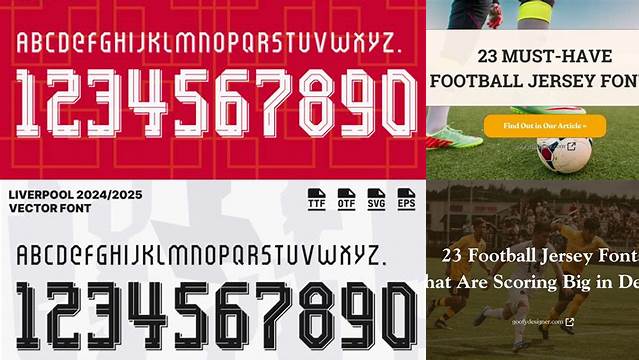
Top Football Jersey Fonts: A Guide For Fans & Designers
Hey everyone! If you're a football fanatic or a designer looking to create the ultimate jersey, you've come to the right place. We're diving deep into the world of best football jersey fonts, exploring everything from classic styles to modern designs. Choosing the right font is crucial; it's like the finishing touch on a masterpiece, making your jersey pop and tell a story. So, grab your favorite beverage, get comfy, and let's explore the fonts that make football jerseys iconic.
Best Football Jersey Fonts: The Classics and Their Charm
When we talk about the best football jersey fonts, we can't ignore the timeless classics that have graced the backs of legends. These fonts have a heritage, a history etched in every game, every goal, and every victory. They're not just fonts; they're symbols of the sport itself. Let's start with some of the most recognizable and beloved.
First up, the Block Font. This is the OG of football fonts. Simple, bold, and readable from a mile away, it's the workhorse of jersey designs. You'll find variations everywhere, from the NFL to your local high school team. The block font's strength lies in its simplicity – it gets the job done, no fuss, no frills. It's like the reliable running back who always gains those crucial yards. Then there's the Varsity Font, often seen with a slight slant or a shadow effect. This font exudes a sense of athleticism and energy. It's perfect for teams looking to project a dynamic and competitive image. Think of it as the quarterback, leading the team with confidence and style. The Varsity font often has a collegiate vibe, making it a great choice for college teams or jerseys inspired by that era. Another must-mention is the Serif Font, sometimes seen, though less frequently, in football jerseys. Serif fonts, with their small decorative strokes, can add a touch of elegance and tradition. It’s like the old-school coach who values discipline and strategy. While not as common, a well-executed serif font can give a jersey a unique and classic feel. These classic fonts are not just about aesthetics; they are about heritage. They represent a legacy of the game, a visual language understood by fans worldwide. Choosing one of these fonts means you're connecting with the history of football, embracing the spirit of the sport. So, whether you're a designer, a fan, or a player, understanding these classics is the first step in creating a jersey that resonates with the soul of football.
These classic fonts are more than just letters; they represent a legacy of the game, a visual language understood by fans worldwide. Choosing one of these fonts means you're connecting with the history of football, embracing the spirit of the sport.
Modern Football Jersey Font Styles: Trends and Innovations
Alright, guys, let's kick things up a notch and explore the best football jersey fonts that are rocking the modern game! Today’s jerseys are all about innovation, pushing boundaries and reflecting the evolving aesthetics of football. If you're all about staying ahead of the curve, this section is for you. We're diving into fonts that bring a fresh, contemporary vibe to the gridiron.
First off, we have the Geometric Fonts. These are characterized by clean lines, sharp angles, and a modern feel. Think of them as the sleek, high-tech gear of today’s players. Geometric fonts are perfect for teams aiming for a forward-thinking, minimalist look. They're all about efficiency and visual impact, just like a perfectly executed play. Then there are the Rounded Fonts. These fonts have softer edges and a more approachable feel. Rounded fonts can add a touch of friendliness and approachability to the jersey. It's the visual equivalent of a warm handshake, creating a welcoming feel for fans. Often used by teams wanting a more inclusive or community-focused image. Another trend is the use of Display Fonts, which are bold and unique. These fonts are designed to grab attention, adding a creative flair to the jersey. Display fonts can incorporate interesting details, like custom outlines or effects, helping the team stand out. This style is often seen in jerseys for special events or collaborations, where the goal is to make a statement. The evolution of font styles in football jerseys mirrors the evolution of the sport itself. It’s about embracing change, adapting to new trends, and making a statement. These modern fonts bring a fresh perspective, adding a contemporary edge to the game. Whether you're a designer, a fan, or just someone who loves a good-looking jersey, staying informed about these trends is key to appreciating the ever-evolving world of football fashion. The bold, the sleek, and the unique – these are the fonts that define the modern era.
Football Jersey Font Selection: Matching Fonts to Team Identity
Choosing the best football jersey fonts isn't just about what looks cool; it's about telling your team's story. A well-chosen font can reflect your team's personality, values, and aspirations. Let's explore how to match fonts to team identity.
For a team with a strong traditional heritage, a classic block font or a timeless serif font is your best bet. These fonts convey stability, respect for history, and a sense of enduring legacy. They say,